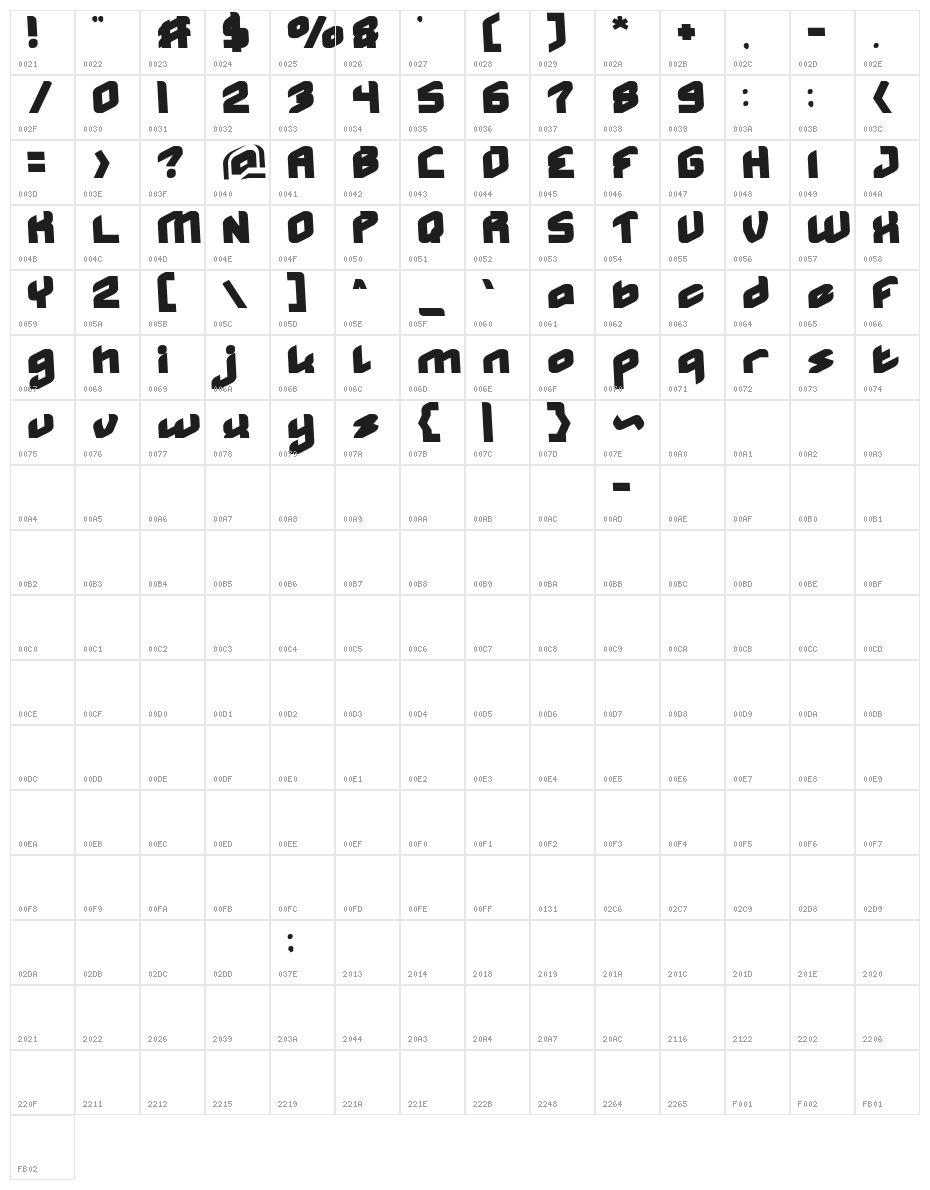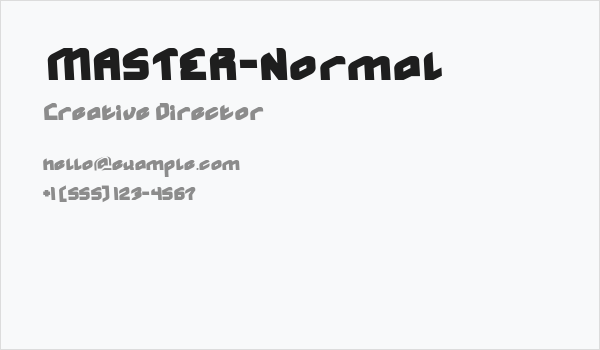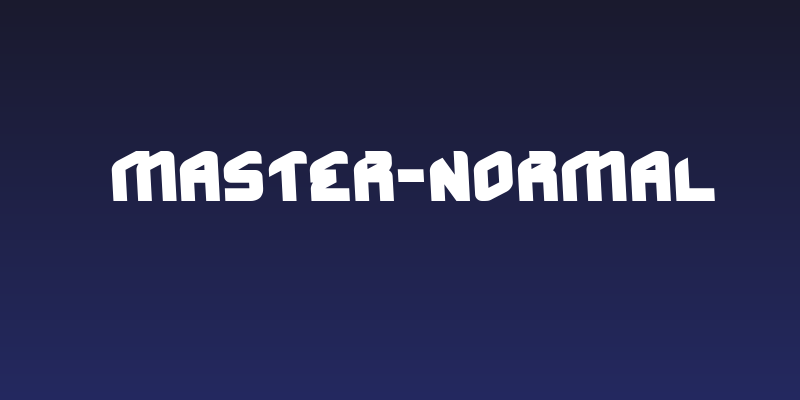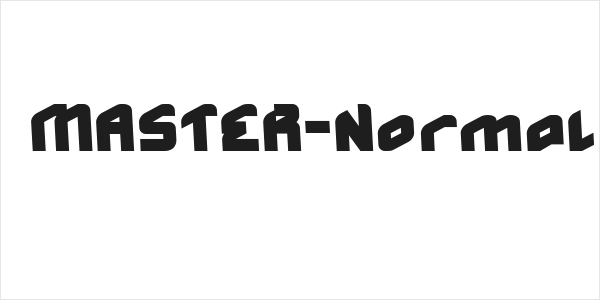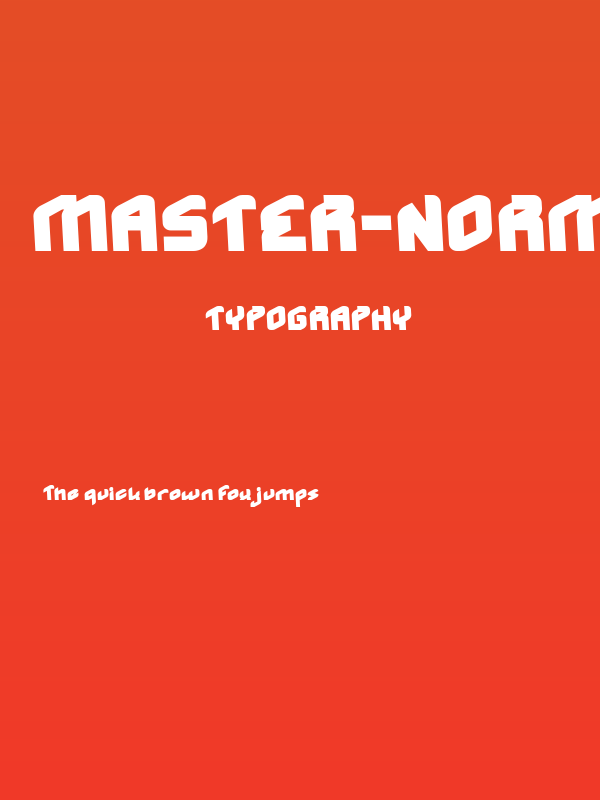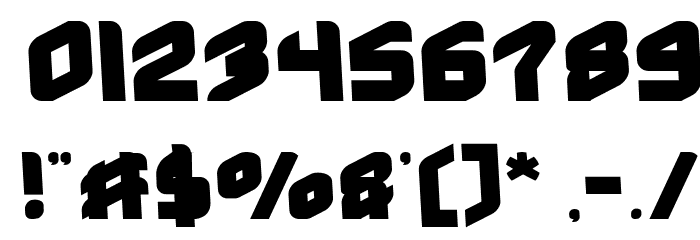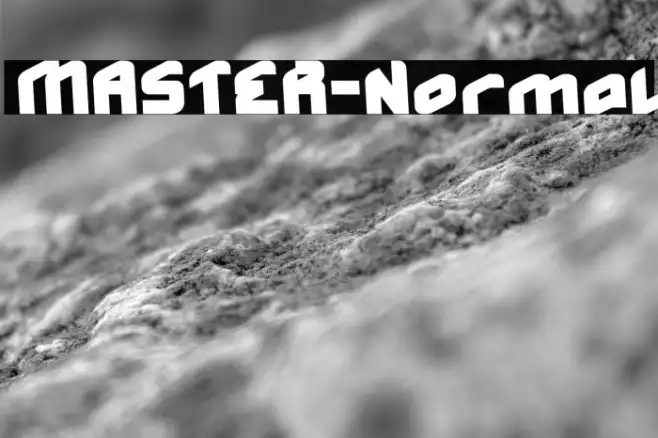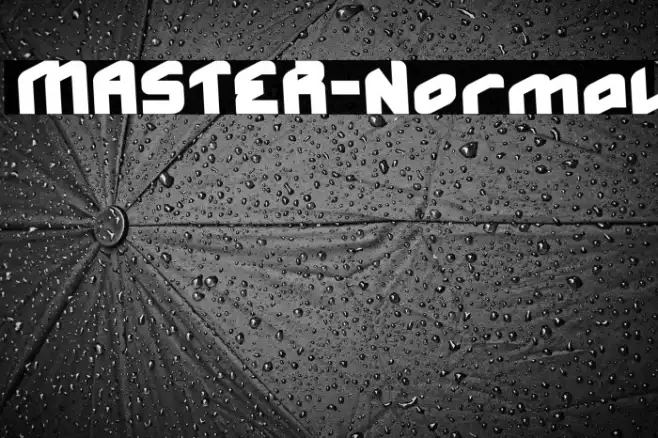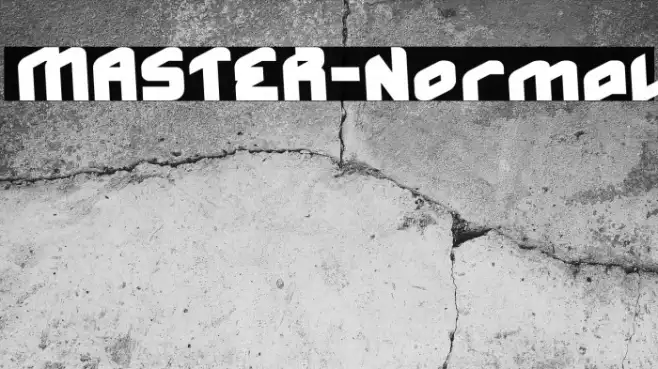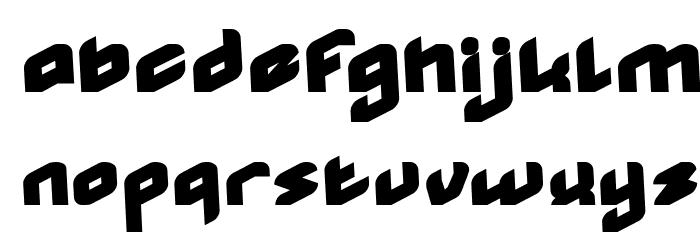
MASTER-Normal Font
MASTER-Normal Description
This font features a bold and geometric style with strong, angular lines and a distinct blocky appearance. The uppercase and lowercase letters maintain a consistent width, giving it a uniform look. The characters are slightly slanted, adding a dynamic and modern touch. The numbers and special characters follow the same angular design, ensuring cohesiveness across all elements. This font's unique style makes it stand out, with its thick strokes and sharp edges creating a powerful visual impact.
| Proposed Projects | Ideal for branding, posters, headlines, and any project requiring a strong, impactful font. |